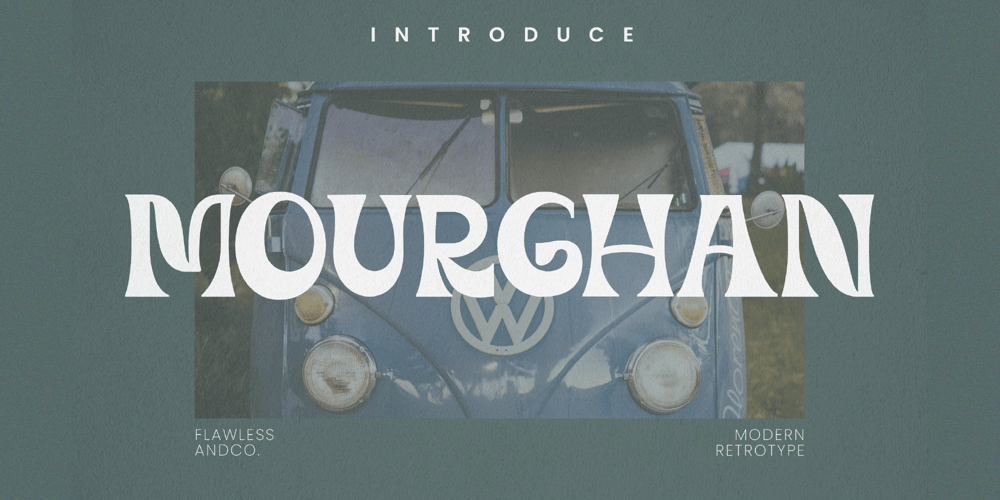
Mourghan Font Family was designed by Achmad Yani and published by Flawlessandco. Mourghan contains 1 styles and family package options. Mourghan is a Modern Retrotype with various alternates and ligatures, an updated blend of bohemian style.There’s some connected letters and some alternates that suitable for any graphic designs such as branding materials, t-shirt, print, business cards, logo, poster, t-shirt, photography, quotes .etcThis font support for some multilingual. Also contains uppercase A-Z and lowercase a-z, alternate character, numbers 0-9, and some punctuation.If you need help, just write me! Thanks so much for checking out my shop!